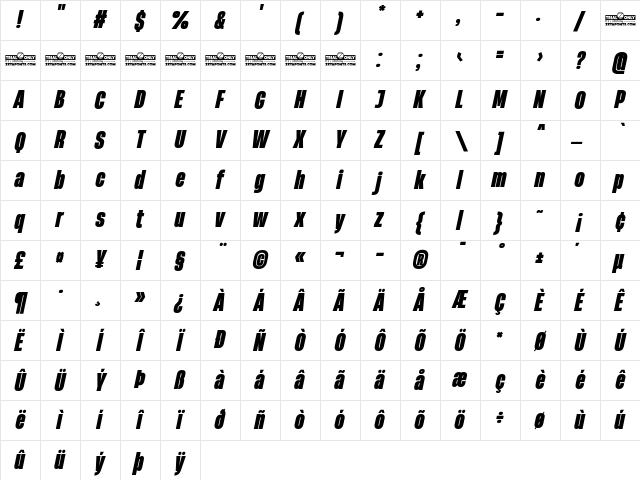
HeadingNow Trial 48 Heavy Italic
Foundry: Studio Kmzero & Zetafonts
Designer: Francesco Canovaro
Complete HeadingNow Trial 48 Heavy Italic glyph index. Displaying only characters natively supported by HeadingNow Trial 48 Heavy Italic font.
Design Context for HeadingNow Trial
HeadingNow Trial is a composed and adaptable typeface that performs quietly and consistently across a wide range of design contexts. The slanted form adds forward momentum and visual energy.
Who designed the HeadingNow Trial 48 Heavy Italic font?